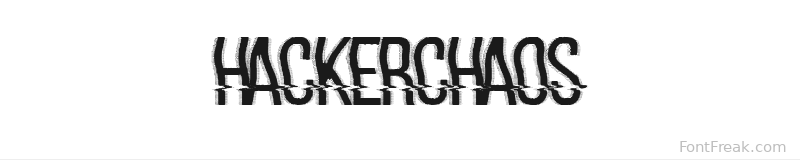
hackerchaos
The hackerchaos font by woodcutter Manero is a striking display typeface that captures the essence of digital disruption and contemporary aesthetics. As a decorative font, it features an intriguing blend of angular forms and distorted characteristics that evoke a sense of urgency and edginess. The stroke weight varies dynamically, creating a visual contrast that enhances its unique appearance. The spacing is tight, contributing to a compact look, while the decorative elements, such as the glitch-like effects, add an innovative twist that sets it apart from conventional typefaces.
This font is ideally suited for a variety of creative projects. It excels in headlines for music event posters, where its bold presence can capture attention and convey a sense of excitement. Additionally, hackerchaos is perfect for tech-themed websites, giving a modern flair to digital portfolios and personal blogs. Its distinctive style also makes it an excellent choice for graphic novels or comic book covers, where it can reflect the dynamic energy of the narrative. Small business owners in the tech or gaming industry will find this font valuable for branding materials, ensuring their identity stands out in a crowded marketplace.
What makes the hackerchaos font truly remarkable is its ability to blend artistic expression with functional design. This font stands out not just for its aesthetic appeal, but also for its capacity to communicate a sense of innovation and modernity, making it an essential addition to any designer's toolkit.